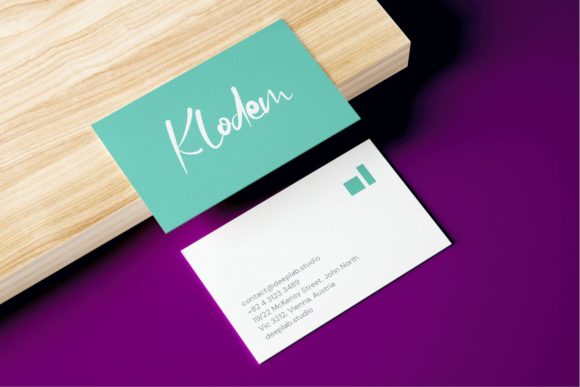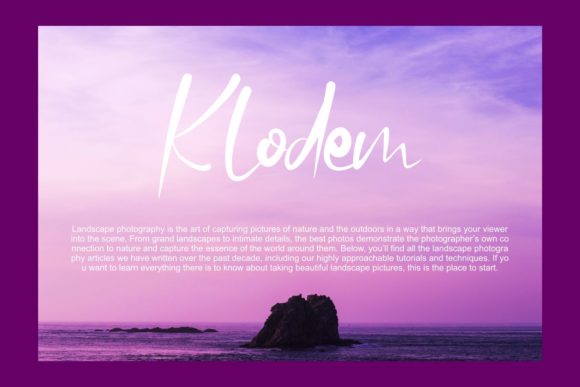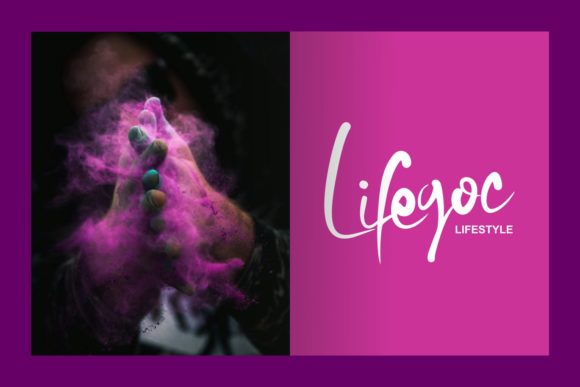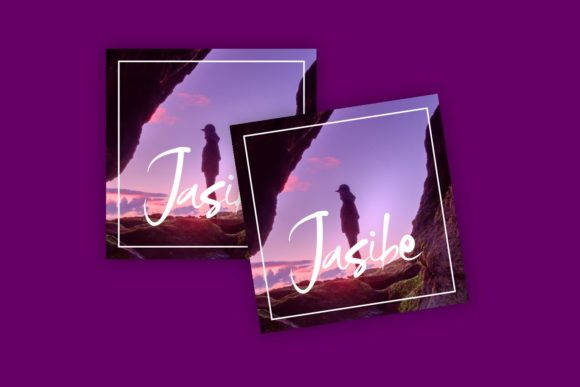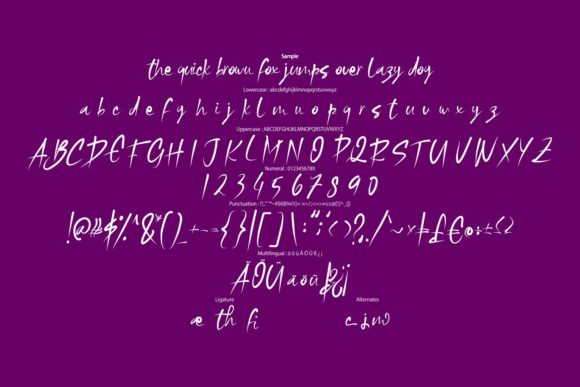
Wipela Font
About Wipela Font
Wipela simplifies elegance into one truly outstanding handwritten font. This font will appeal to a wide range of crafty ideas, from letterheads and titles, to stationery.